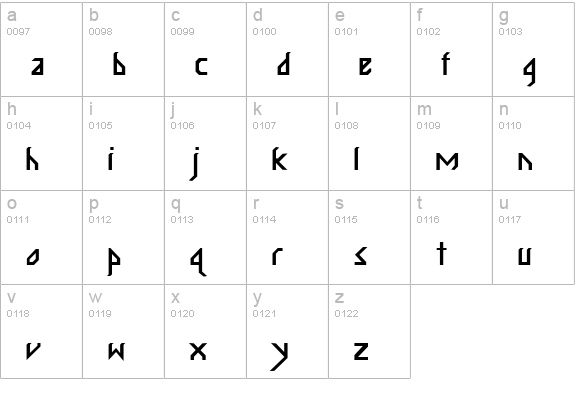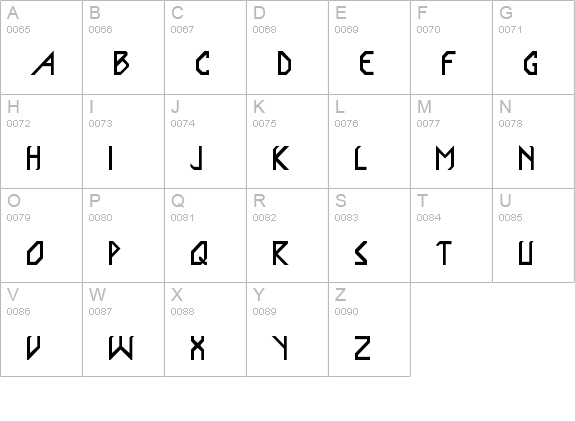
Inkabod Regular Font Details
Inkabod Regular is the standard, neutral variant in the Inkabod typeface family \xE2\x80\x94 well suited to general body text, paragraphs, and standard typographic work.
Inkabod Regular is a stunningly versatile and eye-catching font that effortlessly blends traditional elegance with modern flair. Its clean lines and balanced proportions make it the perfect choice for a wide range of design projects, from logos and branding materials to advertisements and invitations. With its timeless appeal and distinctive character, Inkabod Regular is sure to leave a lasting impression on any viewer. Whether used in print or digital media, this font adds a touch of sophistication and professionalism to any design. What sets Inkabod Regular apart from other fonts is not only its aesthetic appeal but also its accessibility. It is freely available to download at FontsMarket.com, allowing designers and creatives to easily incorporate this incredible font into their projects without any financial constraints. This accessibility ensures that Inkabod Regular can be enjoyed by a wide audience, regardless of budget or resources. Featuring a comprehensive character set, including uppercase and lowercase letters, numerals, punctuation marks, and special symbols, Inkabod Regular offers endless possibilities for customization and creativity. Its versatility allows it to seamlessly adapt to various design styles and themes, making it an excellent choice for both personal and commercial projects. Whether you're designing a logo for a luxury brand, creating a wedding invitation, or developing a magazine layout, Inkabod Regular is the perfect font to elevate your designs to new heights. Its timeless elegance and accessible availability make it a must-have addition to any designer's toolkit. Download Inkabod Regular today at FontsMarket.com and unleash your creativity with this exceptional font.